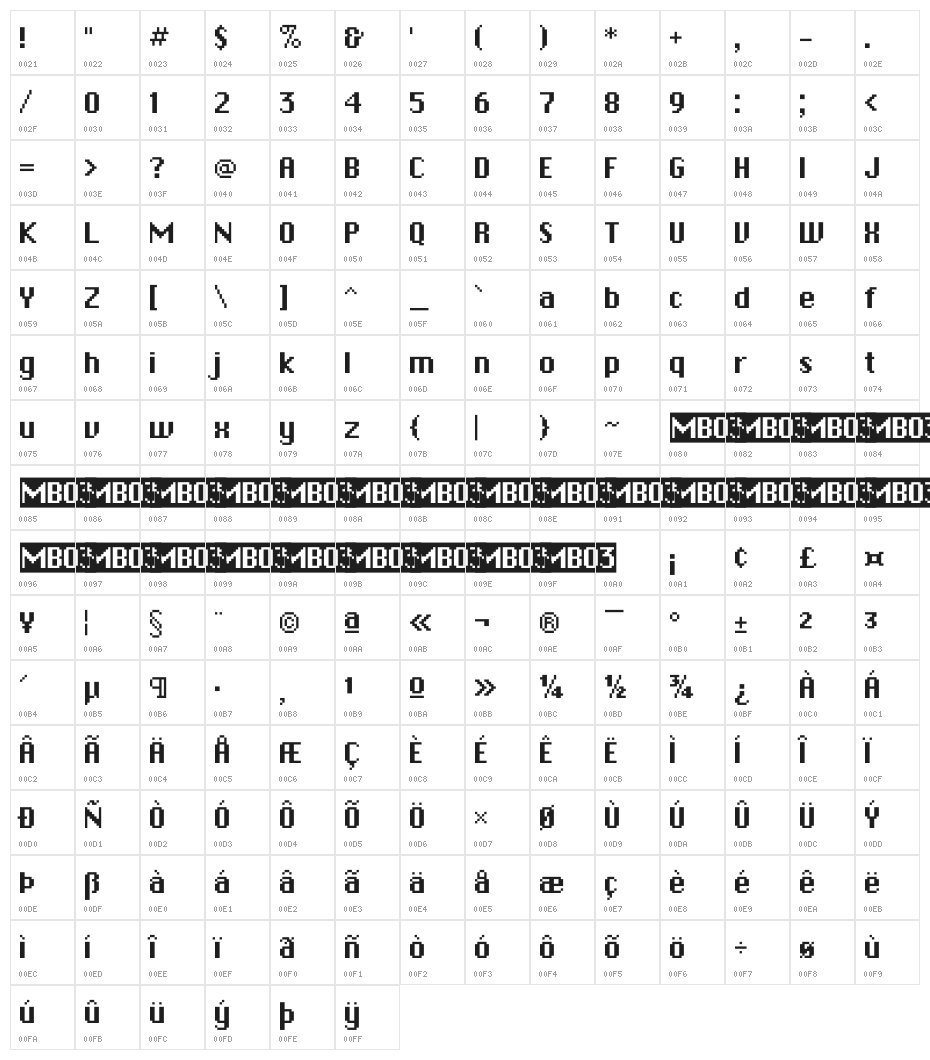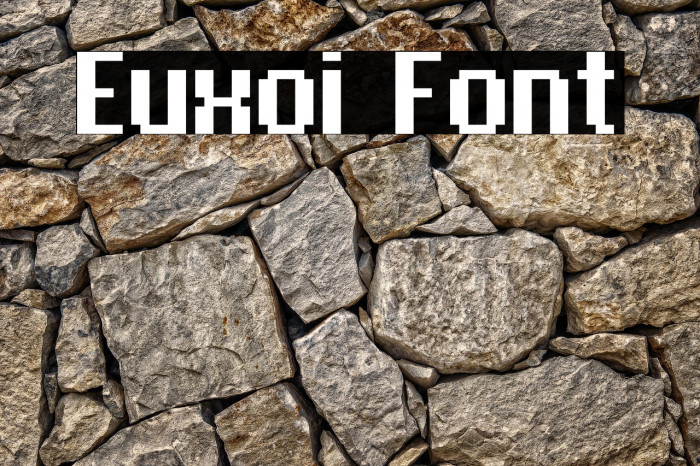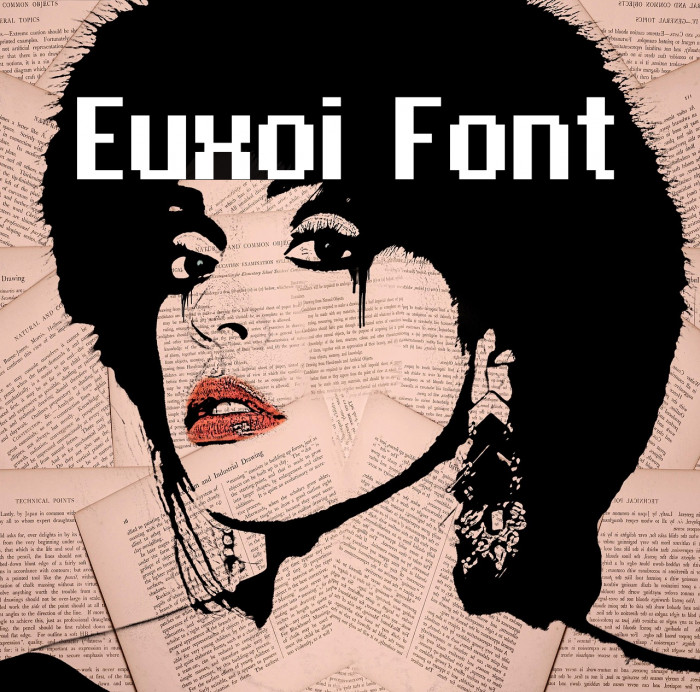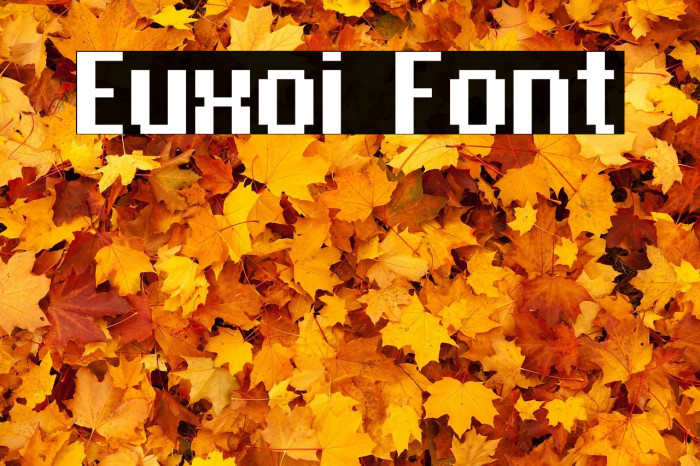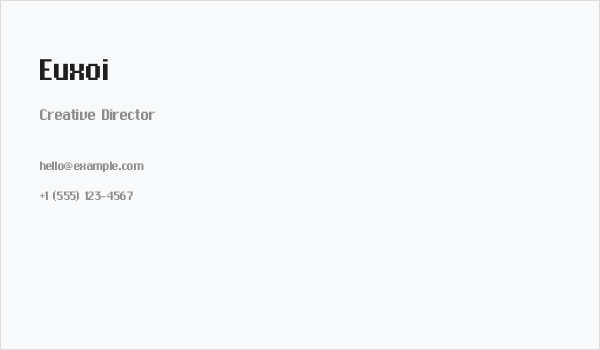
Euxoi Font
Euxoi Description
This font features a pixelated, blocky design reminiscent of early digital displays and video games. Each character is composed of square pixels, giving it a retro, 8-bit aesthetic. The uppercase and lowercase letters maintain a consistent height, contributing to a uniform appearance. The numerals and special characters follow the same pixelated style, ensuring cohesion across all glyphs. This font's distinct, nostalgic look makes it ideal for projects that aim to evoke a sense of vintage technology or gaming culture.
| Proposed Projects | Perfect for video game design, retro-themed posters, digital art, and any project requiring a nostalgic, tech-inspired look. |